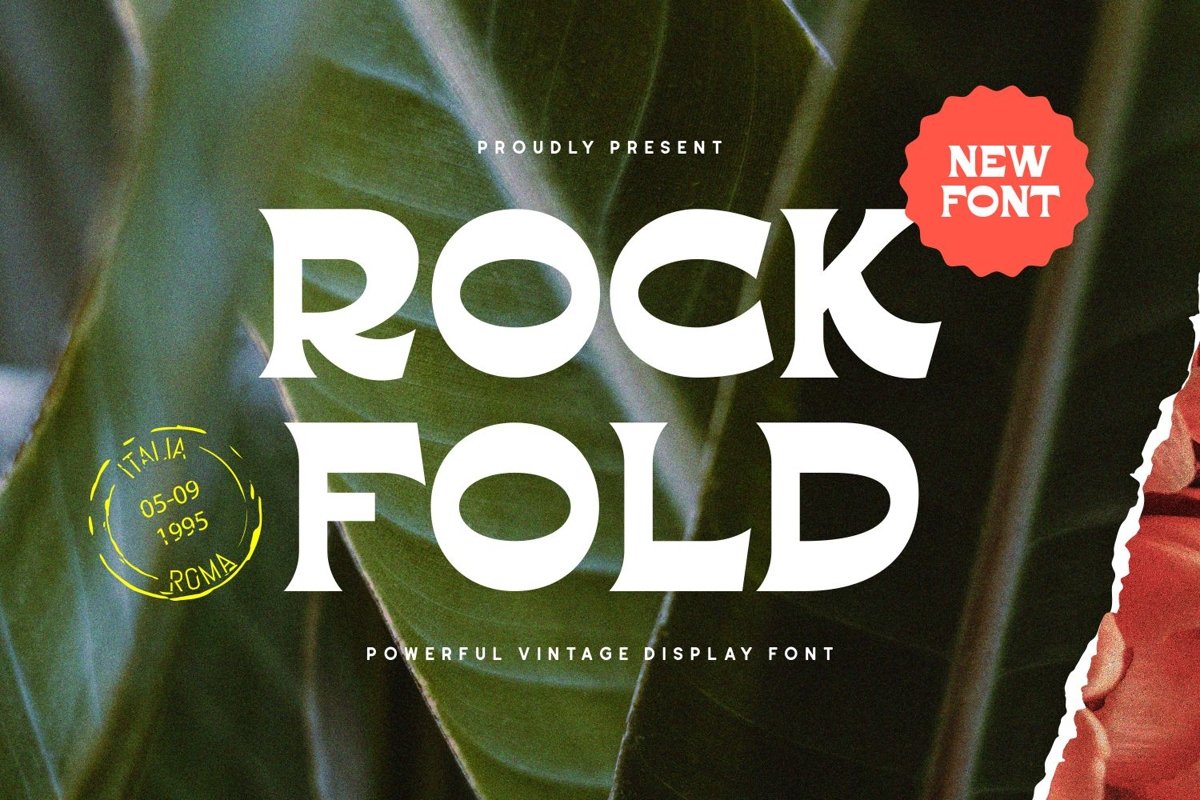
Rockfold is a unique serif display come with vintage themes. We wanted to create the most clean and powerful. It matches applies in some designs such as the logotype, brand, packaging, quotes, poster, t-shirt, badge and more custom design. The features uppercase, lowercase, numeral, punctuation & symbol, multilingual support, PUA encoded (fully accessible without additional design software).